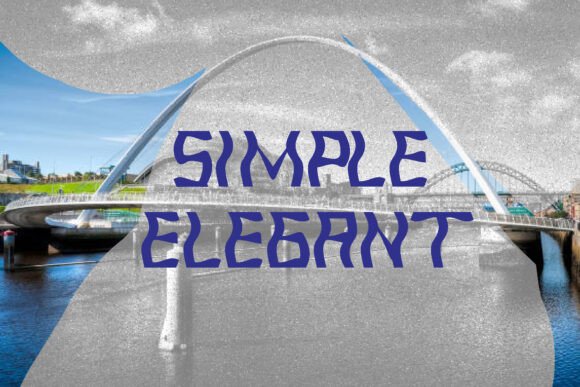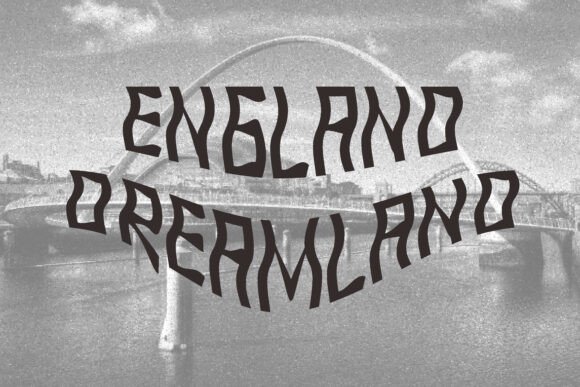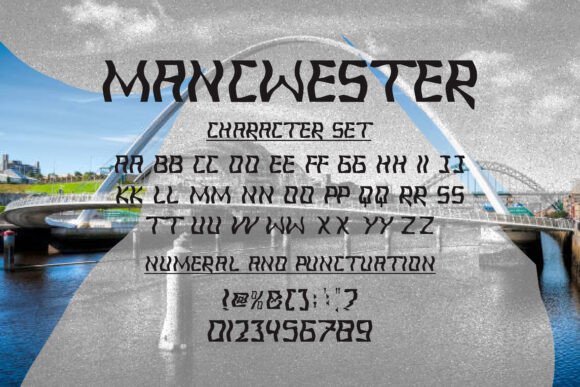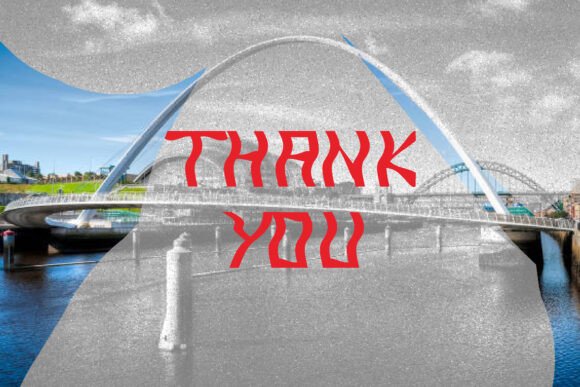
Introduction to Mancwester Font
As you sit at your desk, staring at a blank page, waiting for inspiration to strike, you can’t help but feel a rush of excitement when you finally discover the perfect design resource. For comic book enthusiasts and graphic novel creators, that moment of discovery is about to become a reality with the introduction of the Mancwester Font.
Imagine being able to bring your comic-related projects to life with a font that’s not only visually stunning but also unmistakably powerful. With its unique style and high quality design, the Mancwester Font is the perfect choice for designers who dare to be different and want to take their creative game to the next level.
Whether you’re working on a comic book, graphic novel, or even a design project with a transparent background, the Mancwester Font is a free download that’s sure to impress. With its expressive language and definitive character, this font is a valuable addition to any designer’s toolkit, offering endless possibilities for creative projects that demand attention and leave a lasting impression.
Key Features of Mancwester Font
- High-quality design resource for creative projects, ideal for use in graphic design, digital art, and more.
- Features a unique, modern design aesthetic with a transparent background, allowing for seamless integration into various creative projects.
- Designed with high-resolution graphics in mind, suitable for use in both print and digital applications.
- Perfect for designers seeking a free, high-quality font for use in logos, branding, and other design elements.
- Supports a wide range of languages, making it a versatile design resource for international projects.
Honest Review: Mancwester Font
I recently stumbled upon the Mancwester Font while searching for a free design resource to enhance my creative project. As a designer, I was excited to try it out and see how it would perform.
What works well: ✨ The Mancwester Font has a unique, industrial aesthetic that immediately caught my attention. It’s perfect for creating a modern, edgy look in designs, from logos to print materials. The font is also highly customizable, making it a great choice for designers who want to add a personal touch to their work.
What doesn’t: ⚠️ While the Mancwester Font is a great addition to any design arsenal, it does have some limitations. The font can be a bit difficult to read in certain contexts, particularly when used with a transparent background. Additionally, the font’s weight and line spacing can be adjusted, but it may not be suitable for all types of designs.
Overall impression: I was pleasantly surprised by the Mancwester Font’s quality and versatility. It’s a great free download that can add a unique touch to any creative project. While it may have some limitations, it’s definitely worth considering for designers looking to add some edge to their work.
Key features:
- Unique, industrial aesthetic
- Perfect for modern, edgy designs
How to Use Mancwester Font
The Mancwester Font is a high-quality design resource ideal for creative projects that require a unique and eye-catching font. With its transparent background, this font can be easily layered over other design elements to create visually appealing compositions.
To get the most out of the Mancwester Font, experiment with different font sizes, colors, and layering techniques to create unique and visually appealing designs. You can also combine the font with other design elements, such as images and graphics, to add depth and interest to your creative project.
The Mancwester Font is suitable for a wide range of creative projects, including logos, posters, flyers, and social media graphics. Its unique and eye-catching design makes it an excellent choice for designers and artists who want to stand out from the crowd and create memorable designs.